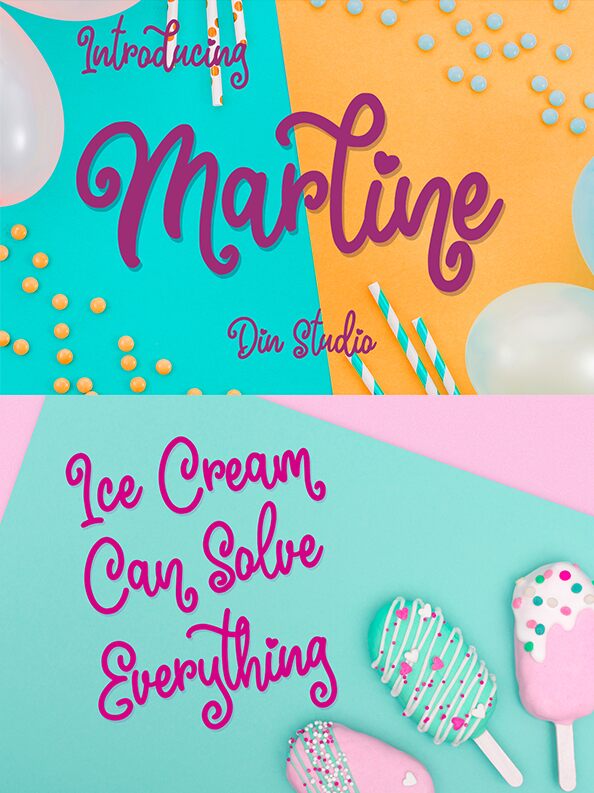
Say hello to Marline font.
Made from a chic monoline, it will make your design more beautiful.
Suitable for your any design like a book cover, sign, t-shirt printing, and etc.